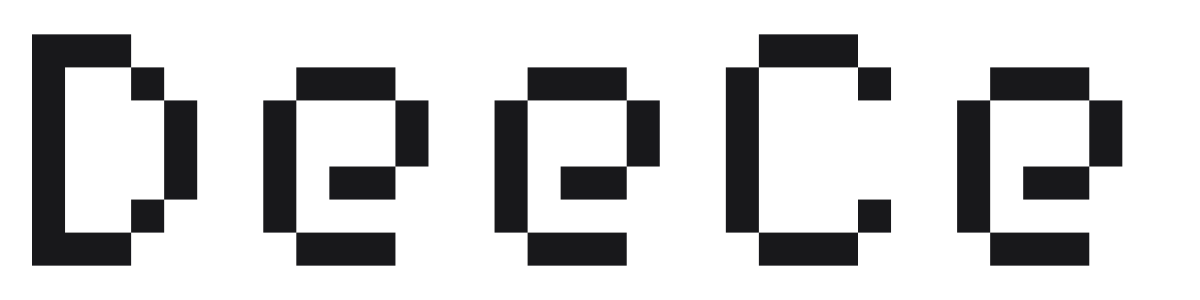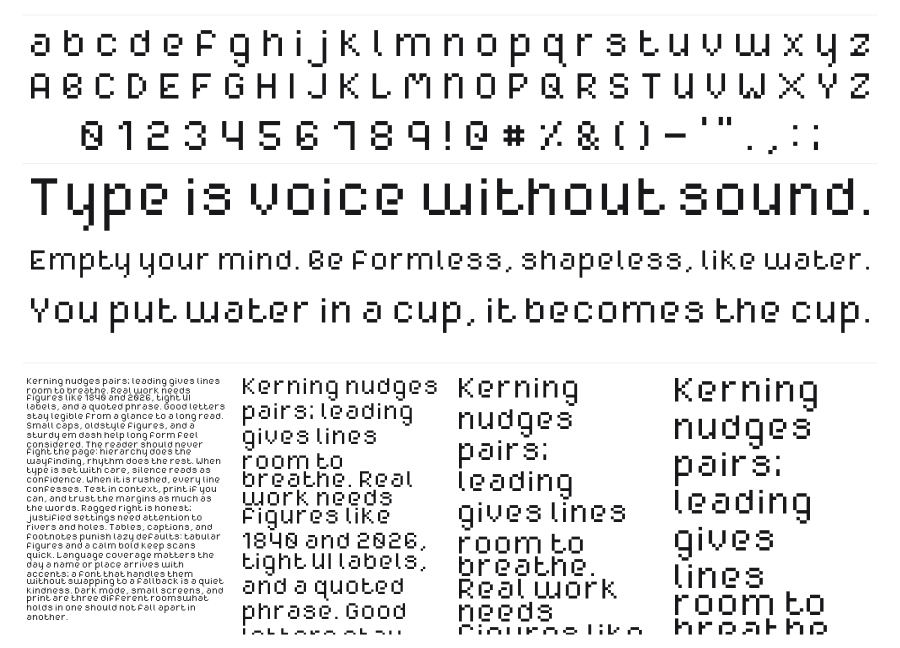
DeeCe
DeeCe is a bitmap pixel font built on a strict grid, evoking the character displays of early home computers and handheld game consoles. Every character is constructed from small square pixel blocks with consistent weight and zero stroke contrast, giving it an honest, lo-fi charm. It works well anywhere a retro digital aesthetic is the point: game interfaces, chiptune branding, retro-themed editorial, and pixel art projects.